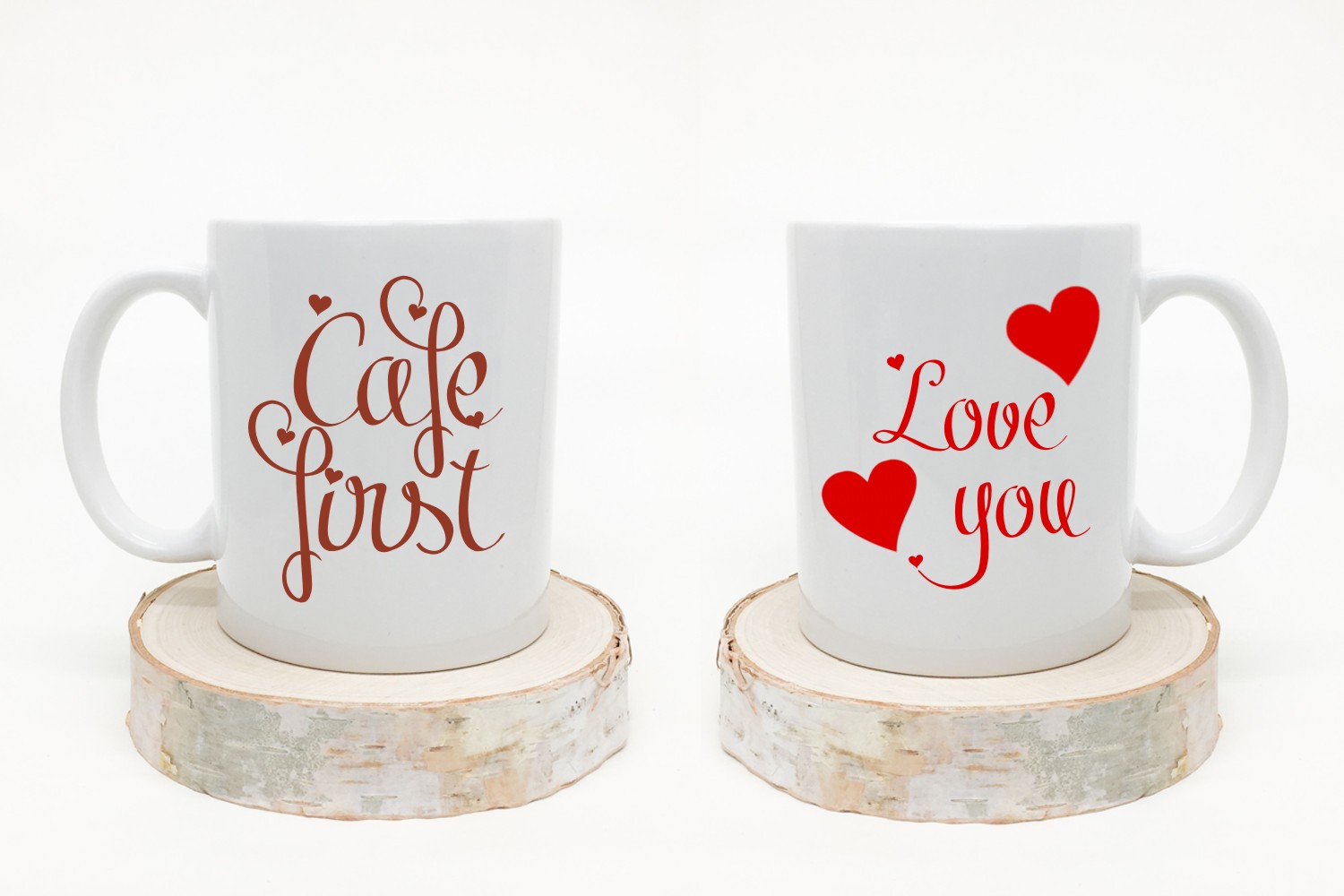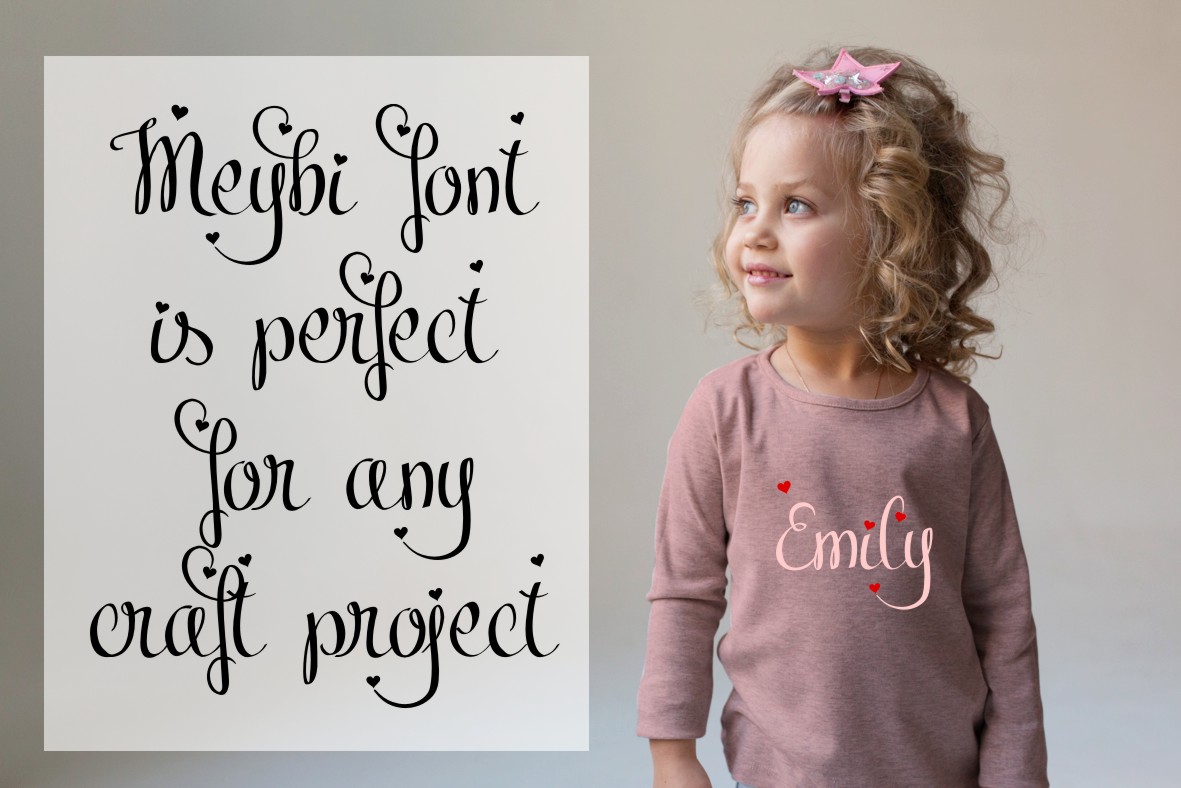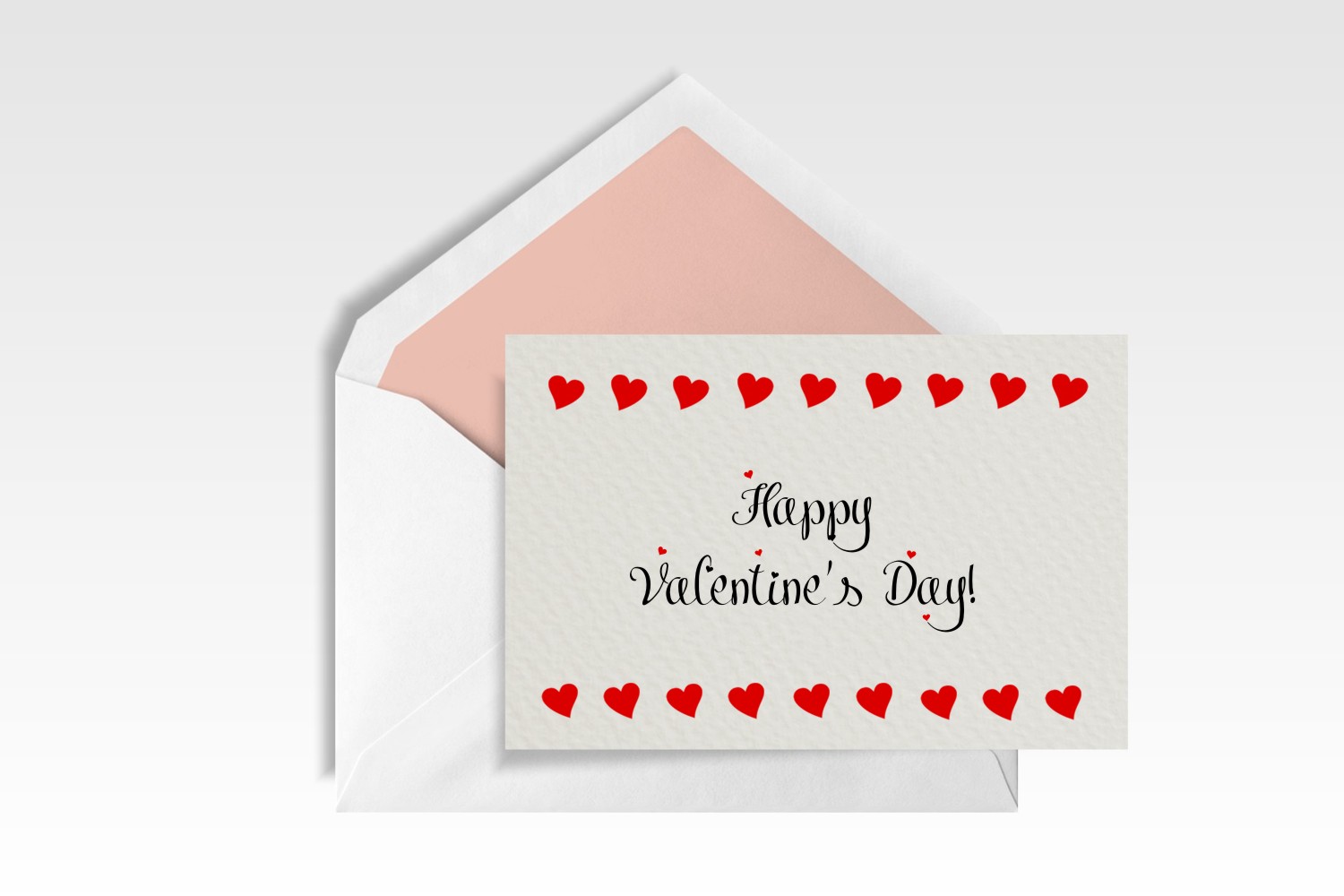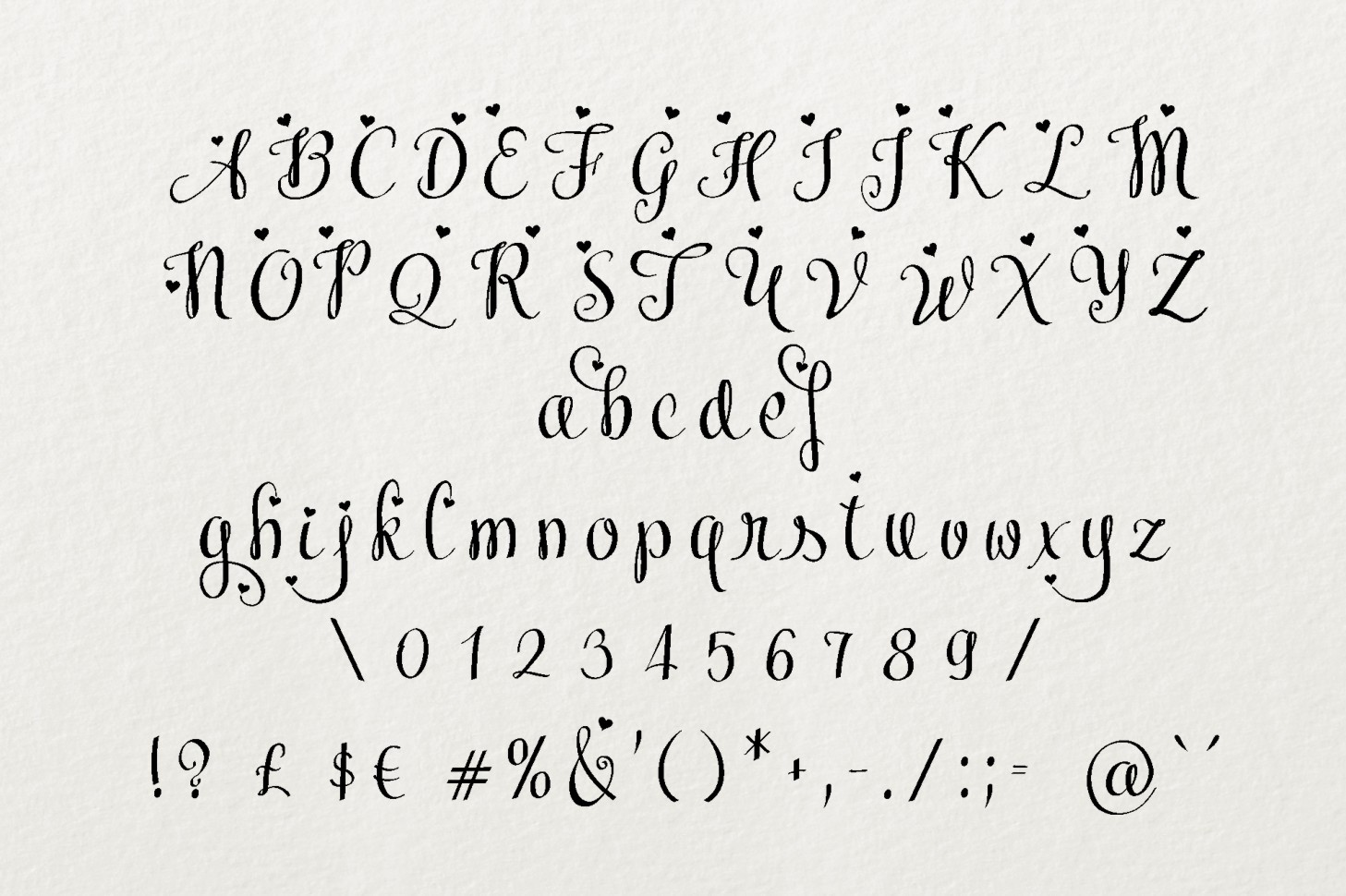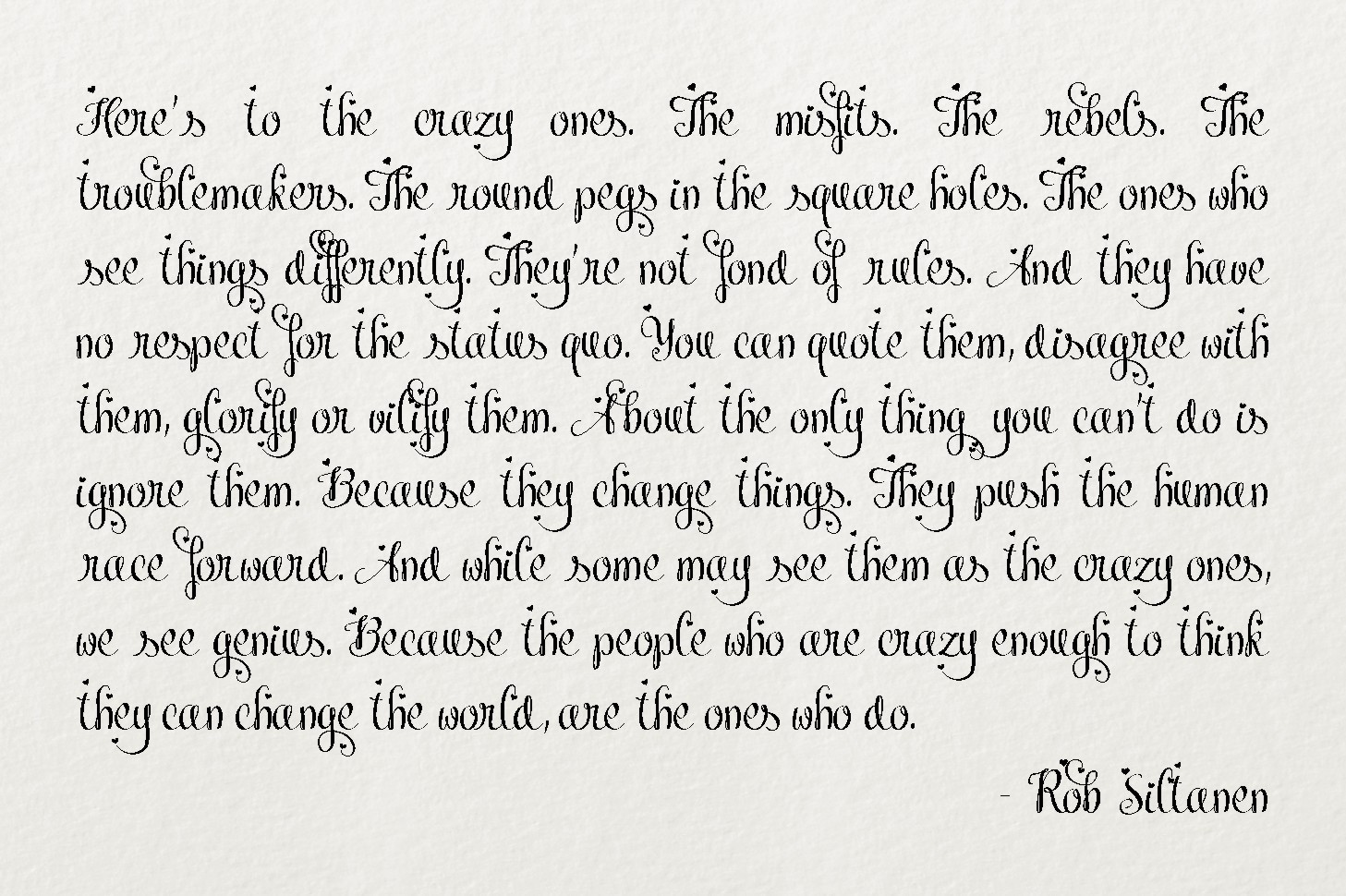
Introduction to Meybi Font
As a designer, you’ve probably had that moment when you’re searching for the perfect font to elevate your creative project. You scroll through countless options, but nothing seems to capture the essence of your vision. For those romantic and whimsical projects, we have a special find – the Meybi Font.
This beautiful, feminine font is adorned with heart flourishes and curved styling, making it a perfect fit for seasonal typographic designs or special events that demand a touch of elegance. Whether you’re designing a wedding invitation, a Valentine’s Day card, or a romantic blog post, Meybi Font is a valuable design resource that can take your project to the next level.
Key Features of Meybi Font
• Unique, hand-drawn design for creative projects and designs.
• Includes multiple font styles and weights, allowing for versatility in creative projects.
• Perfect for use in logos, branding, typography, and other creative applications where a unique font is desired.
Honest Review: Meybi Font
As a designer, I’m always on the lookout for high-quality design resources that can elevate my creative projects. Recently, I came across the Meybi Font, and I’m excited to share my honest review with you.
What works well: ✨ The Meybi Font has a unique, elegant design that’s perfect for adding a touch of sophistication to your projects. It’s also available for free download, making it a great resource for designers on a budget. The font also comes with a transparent background, which is ideal for creating seamless designs.
Some limitations: ⚠️ The Meybi Font is a relatively simple design, which may not be suitable for complex or detailed projects. Additionally, the font may not be as versatile as some other design resources on the market.
Overall, I’m impressed with the Meybi Font. It’s a great design resource for designers who want to add a touch of elegance to their projects. While it may have some limitations, it’s a great option for those who want a high-quality font at no cost.
Here are some key features of the Meybi Font:
• Unique, elegant design
• High-quality design
• Suitable for creative projects
Meybi Font
The Meybi Font is a versatile and high-quality design resource ideal for creative projects. To get the most out of it, follow these steps:
Tips for Getting the Most Out of Meybi Font
Use the Meybi Font on a transparent background to create a seamless design. Experiment with different font sizes and styles to add visual interest to your project. You can also combine the Meybi Font with other design elements to create a unique look.
The Meybi Font is ideal for creating invitations, brochures, and business cards. You can also use it to design social media graphics, presentations, and documents. With its high-quality design and transparent background, the Meybi Font is a versatile resource for any creative project.